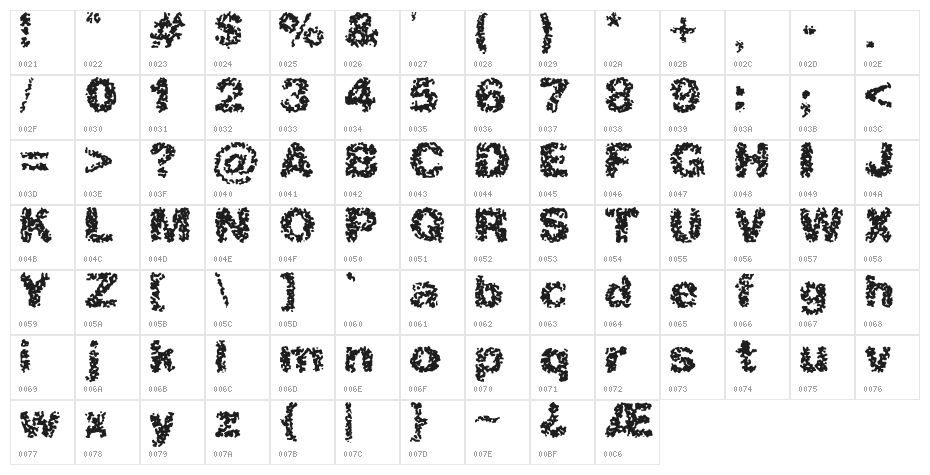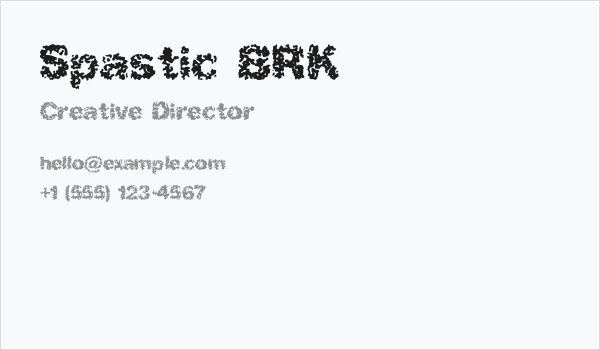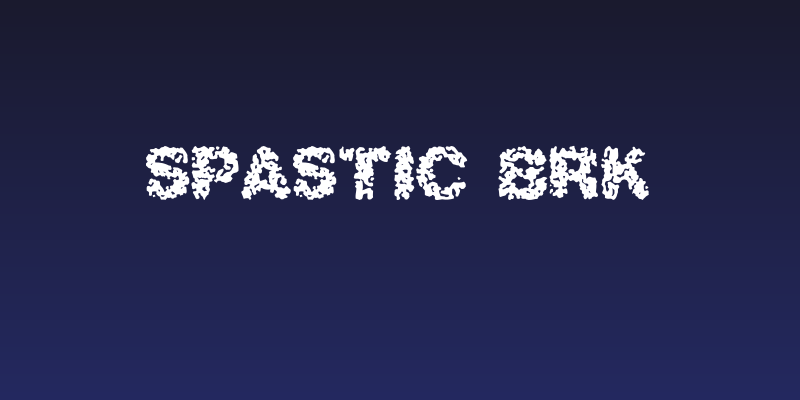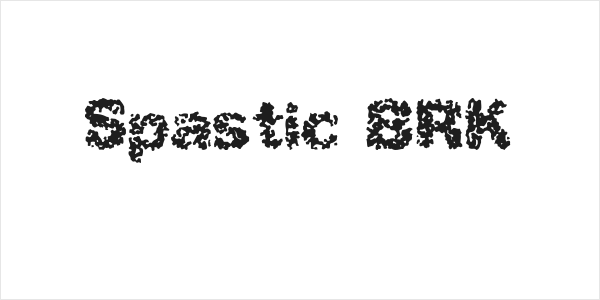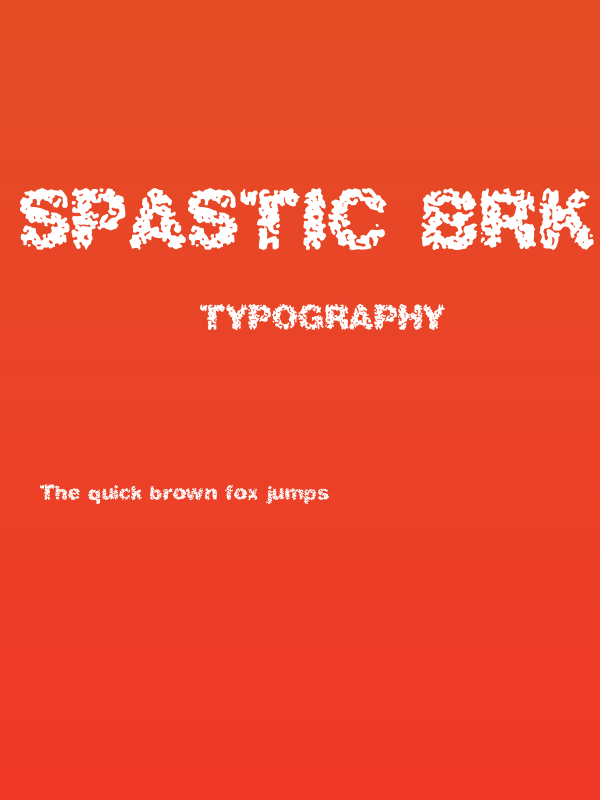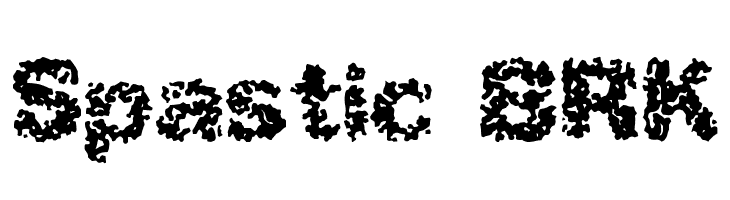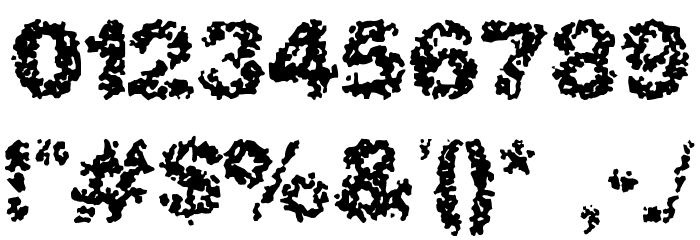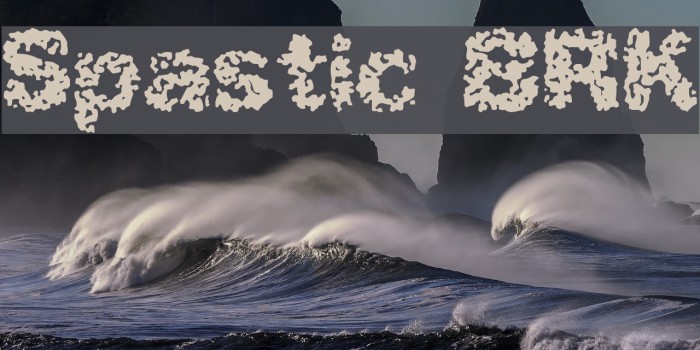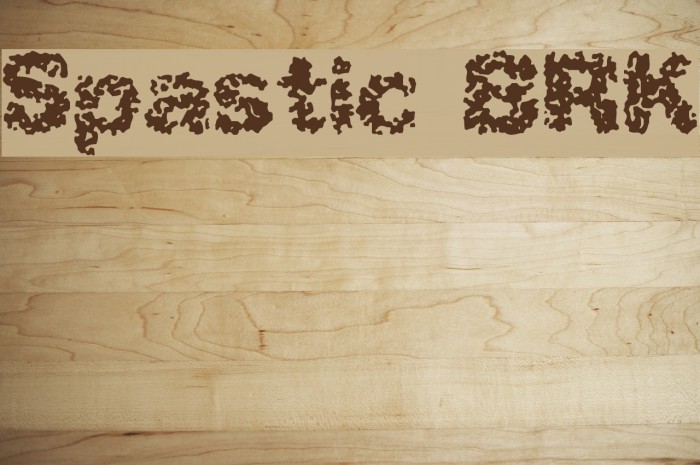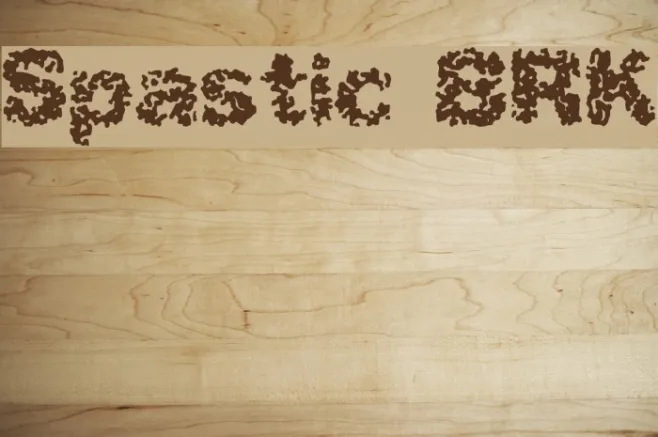
Spastic BRK Font
Spastic BRK Description
This font features a highly decorative and textured style, with each character appearing as if it is composed of irregular, scattered particles. The unique design gives it a chaotic yet artistic appearance, making it stand out in any visual context. The characters maintain a consistent size and shape, ensuring readability despite their intricate detailing. This font is ideal for creative projects where a bold and unconventional look is desired. Its distinct appearance captures attention and adds a dynamic element to any design.
| Proposed Projects | Ideal for posters, album covers, creative branding, and artistic projects. |